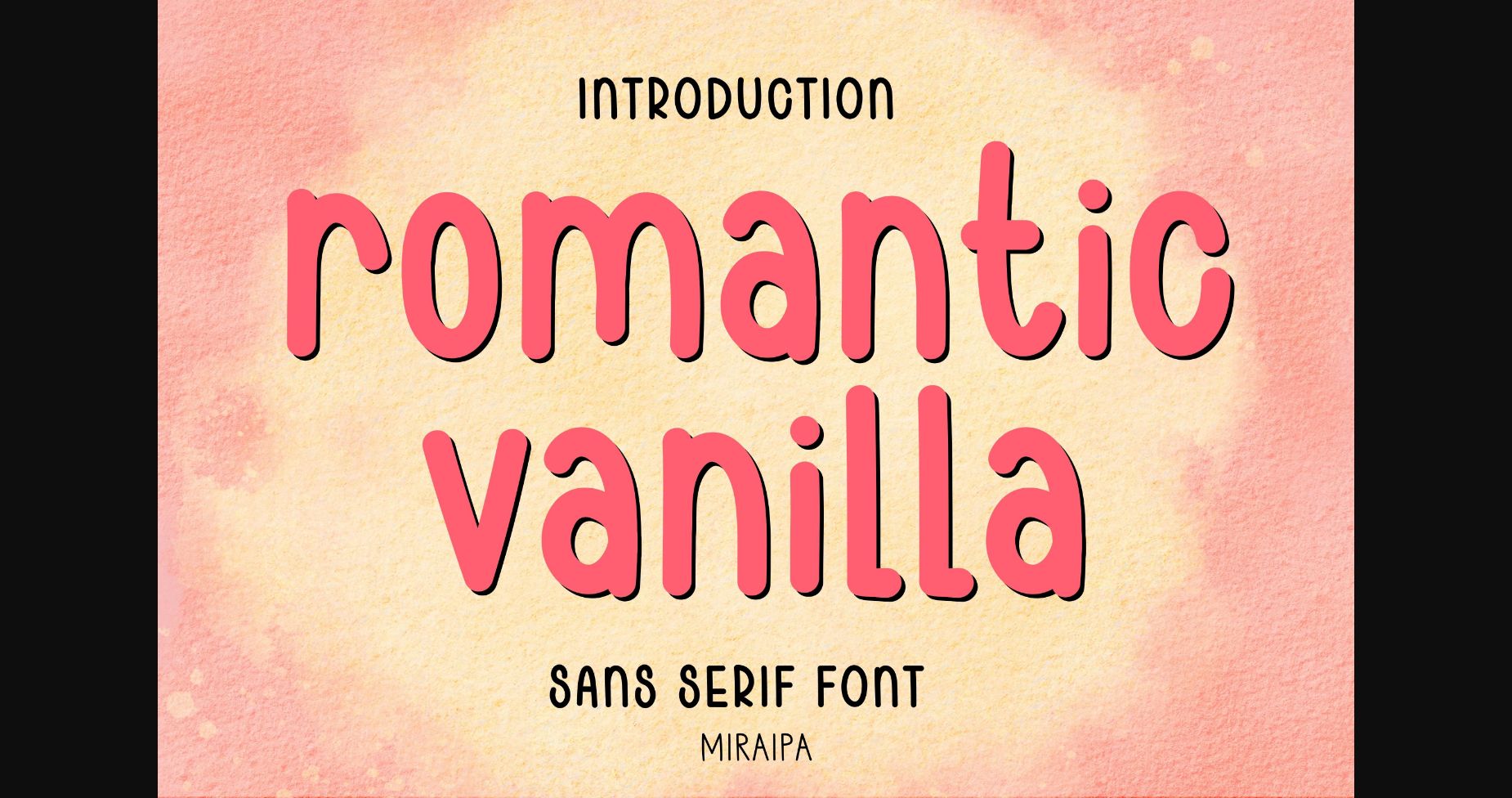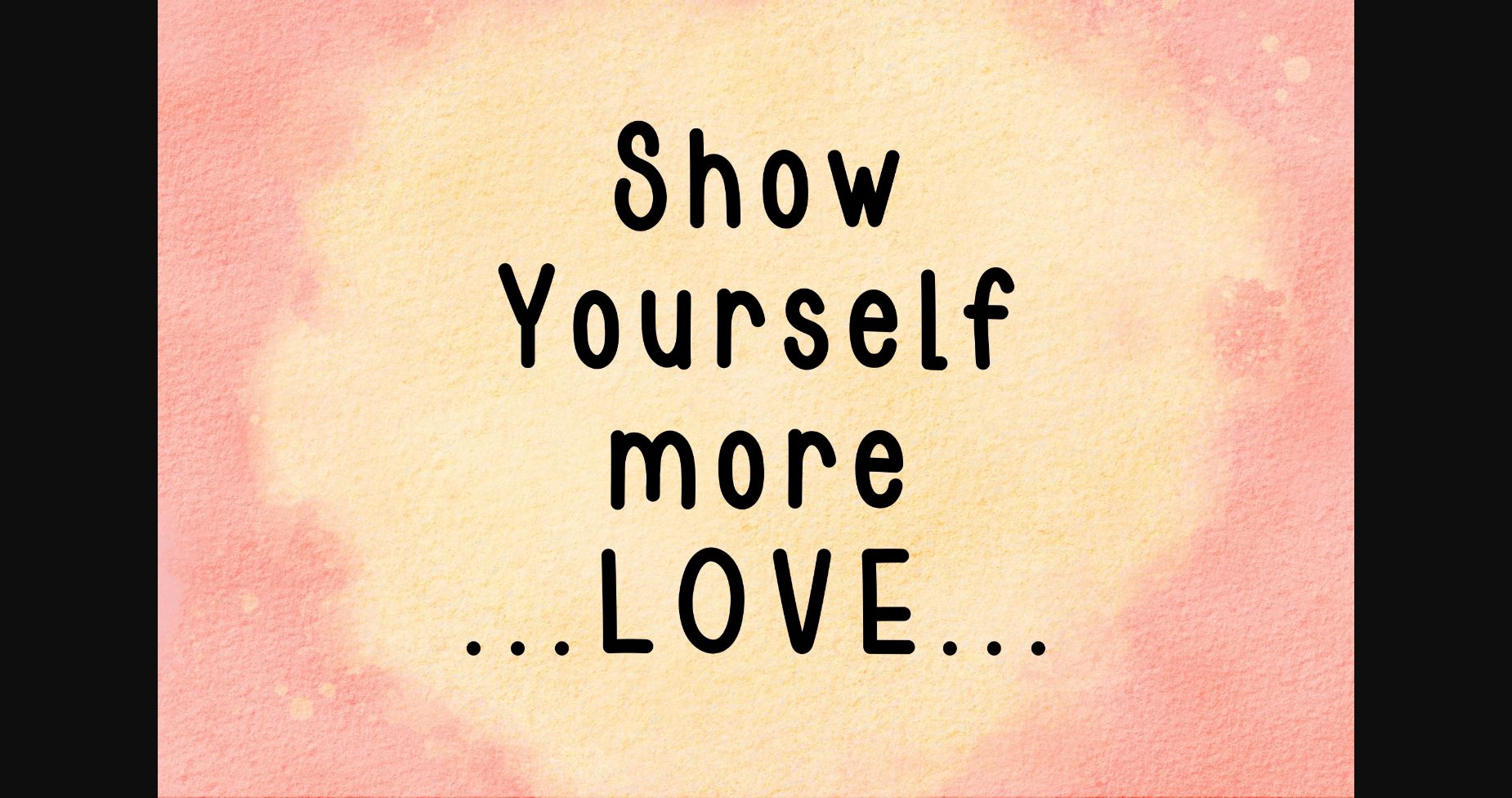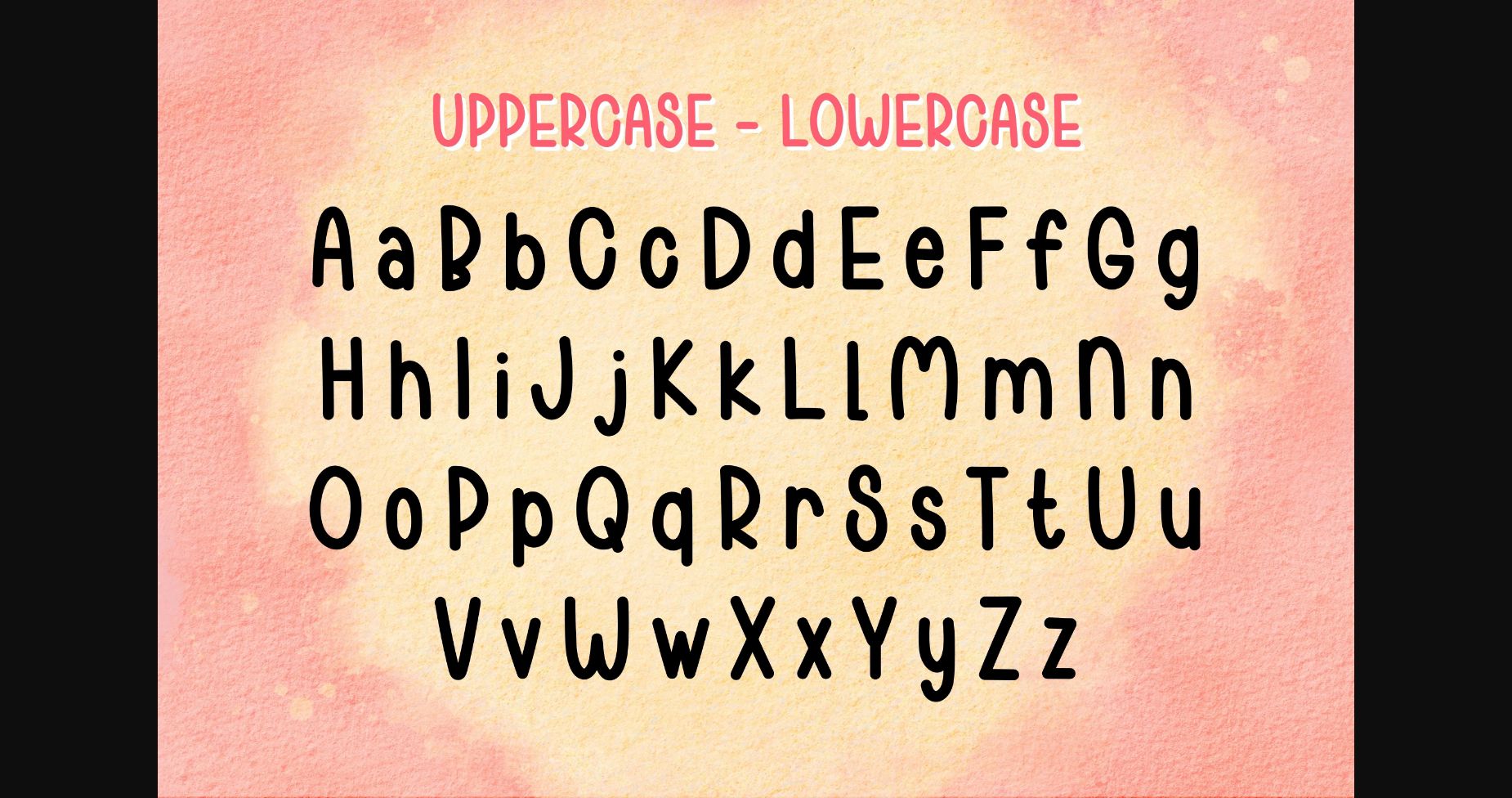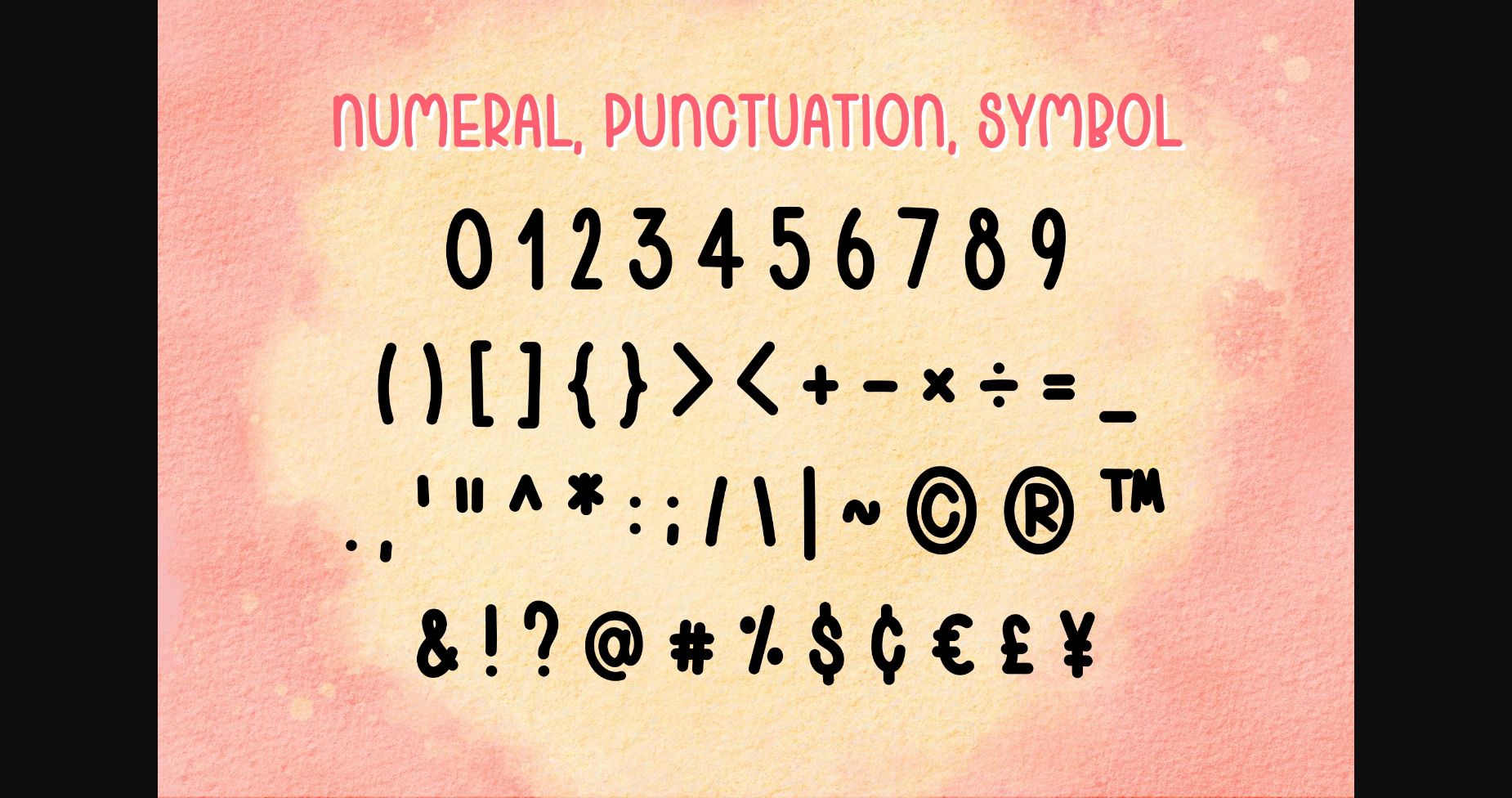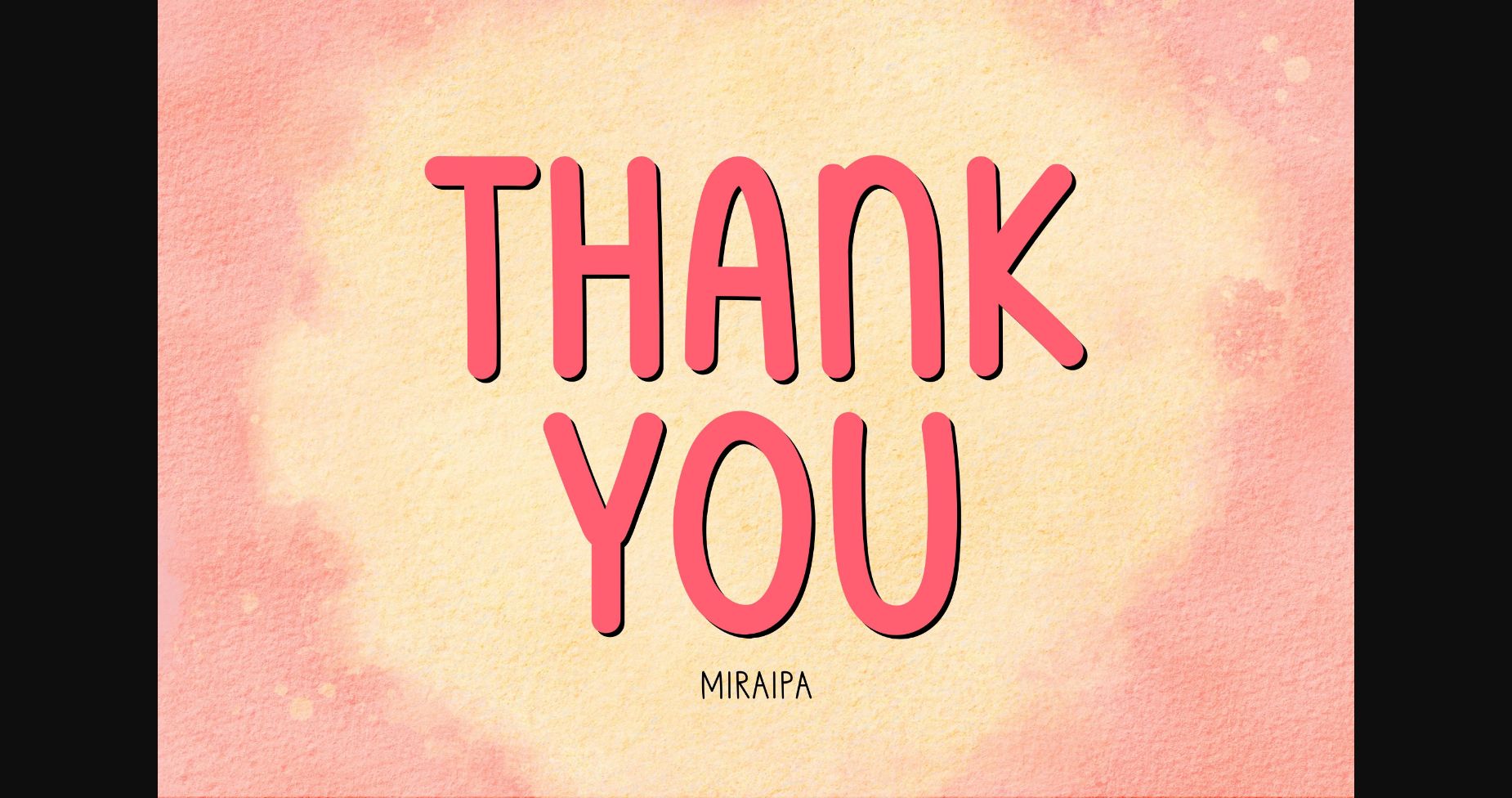
Romantic Vanilla Font
About Romantic Vanilla Font
Romantic Vanilla is designed in a cute and friendly handwritten sans serif font style. It would be awesome for your diary, planner, back-to-school projects, wedding designs, party decorations, invitations, Fall, Halloween, Christmas, posters, blogs, clothing, child-related designs, greeting cards, social media posts, or anything that needs a friendly touch. Add it now to your fonts library, and it will bring any of your DIY projects to life!